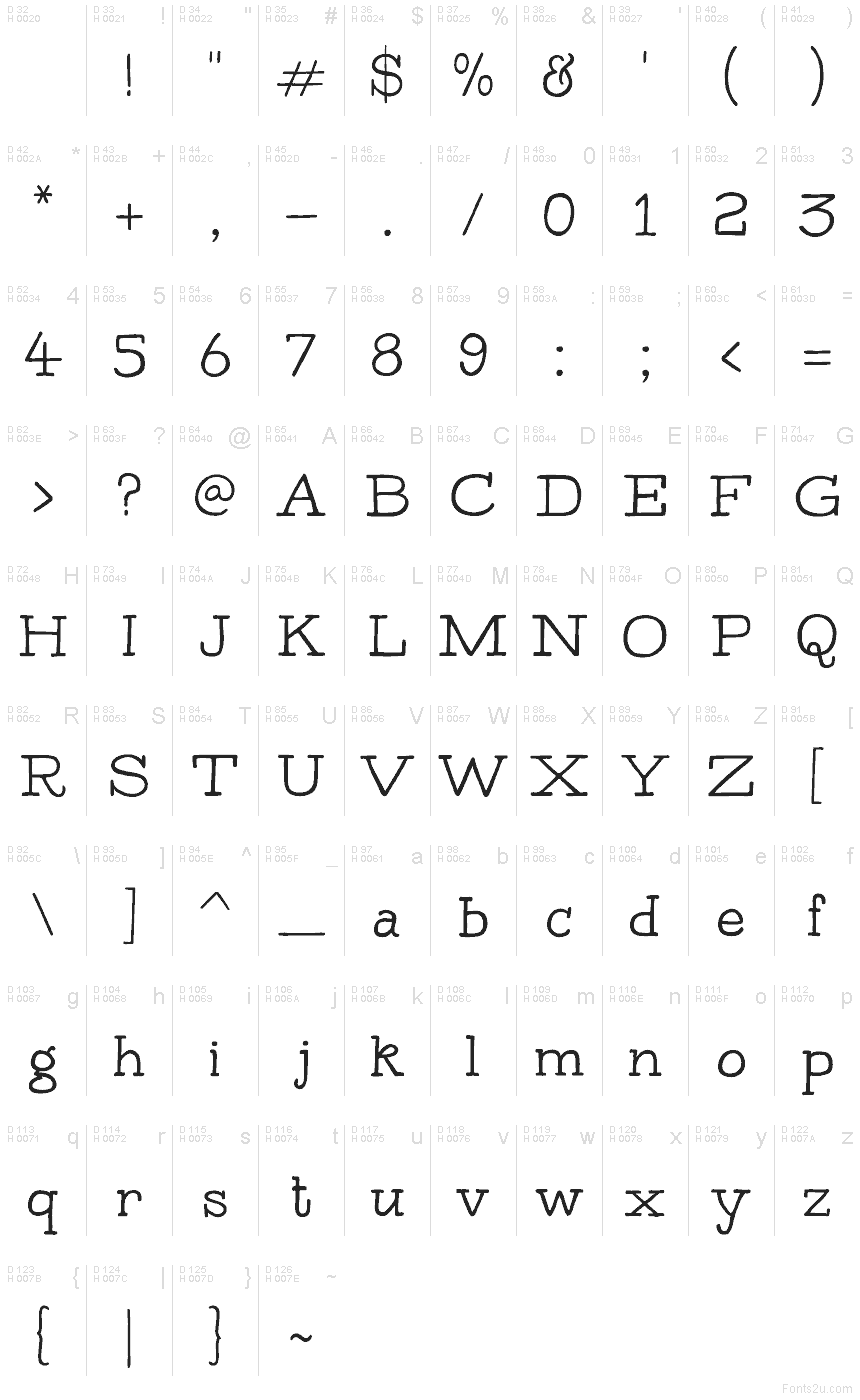
Bowler Hand Regular Demo
Bowler Hand font by Wearecolt is a free handwritten slab serif typeface. Drawn with a Rotring pen, it carries inky edges, subtle wobble, and chunky slabs that read as warm and weathered rather than messy. The texture adds a lived‑in grit that feels printed, not polished—great when you want charm, legibility, and character in the same breath.
Using Bowler Hand, headlines snap with a steady rhythm while body copy keeps a conversational pace. It shines on coffee packaging, heritage branding, farmers’ market signage, zines, craft beer labels, and retro poster work. This free font loves short lines and generous margins; pair it with a clean grotesk for captions to let the hand-drawn texture take the lead.
Bowler Hand is available in four weights: Light, Regular, Medium, and Bold.